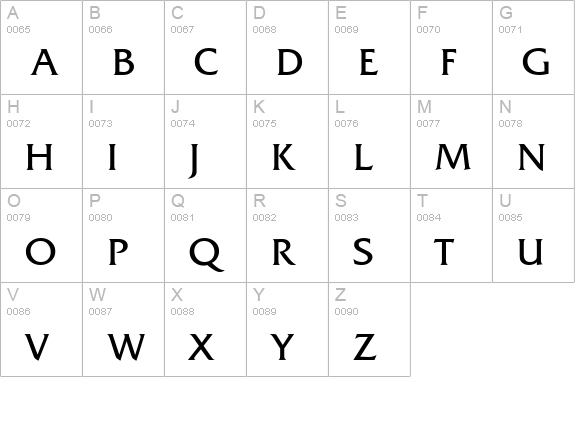
Fritz Regular is the standard, neutral variant in the Fritz typeface family \xE2\x80\x94 well suited to general body text, paragraphs, and standard typographic work.
Fritz Regular font is a versatile typeface that exudes sophistication and elegance. With its clean lines and classic design, this font is perfect for a wide range of projects, from branding to editorial design. The timeless appeal of Fritz Regular makes it a go-to choice for designers looking to add a touch of refinement to their work. What sets Fritz Regular apart is that it is not only stylish and functional but also free to download! Yes, you read that right - this high-quality font is freely available at FontsMarket.com. So whether you're working on a professional project or just looking to add some flair to your personal creations, Fritz Regular is the perfect choice. Download it today and elevate your designs with this exquisite typeface.